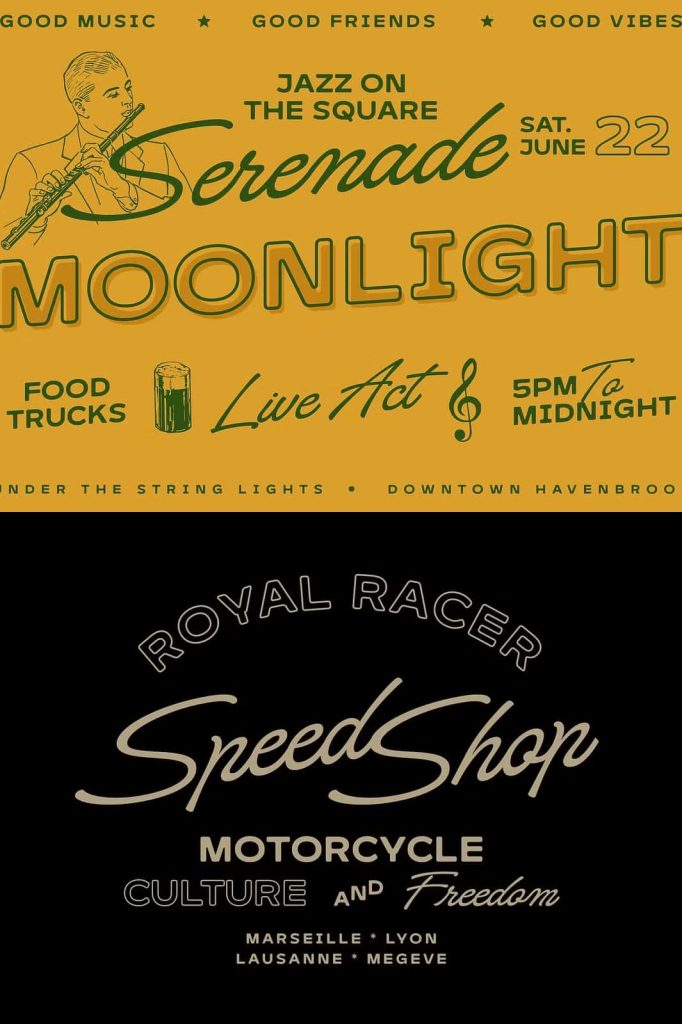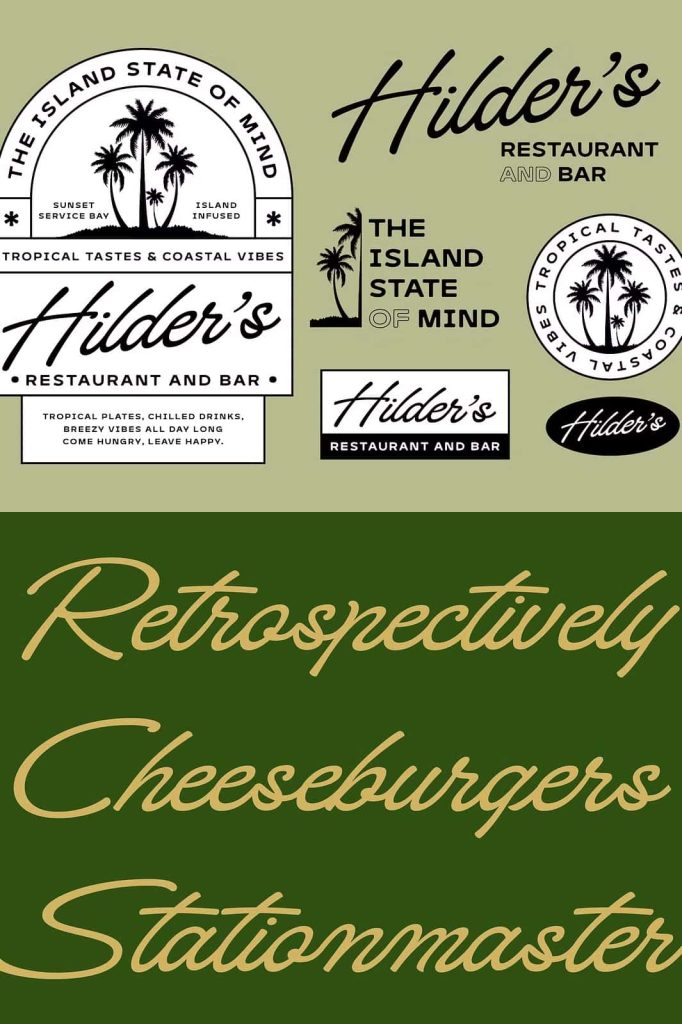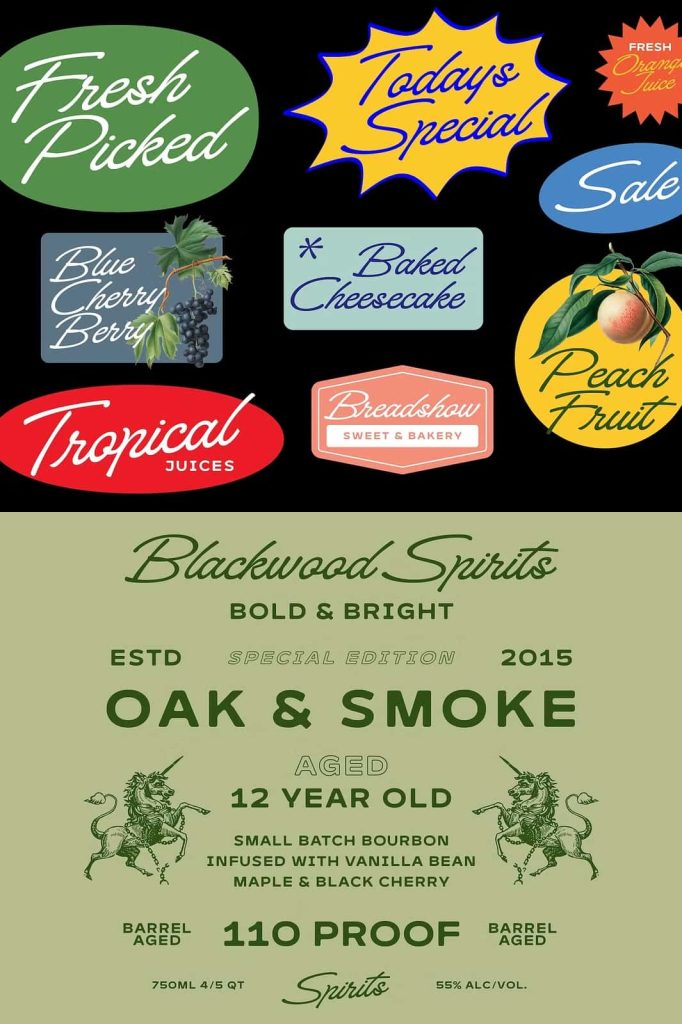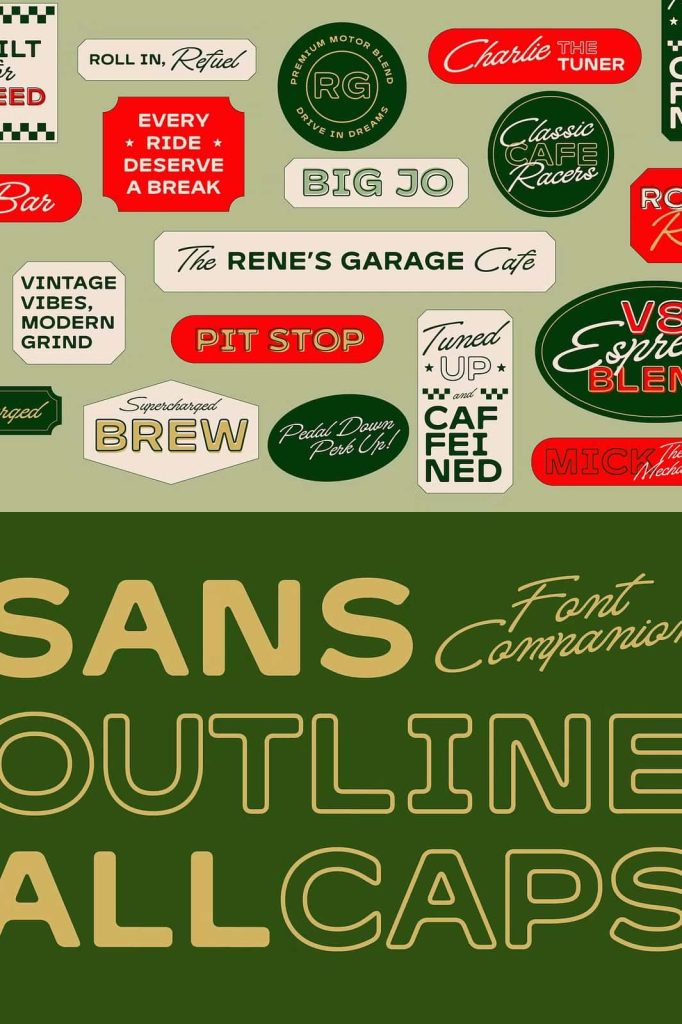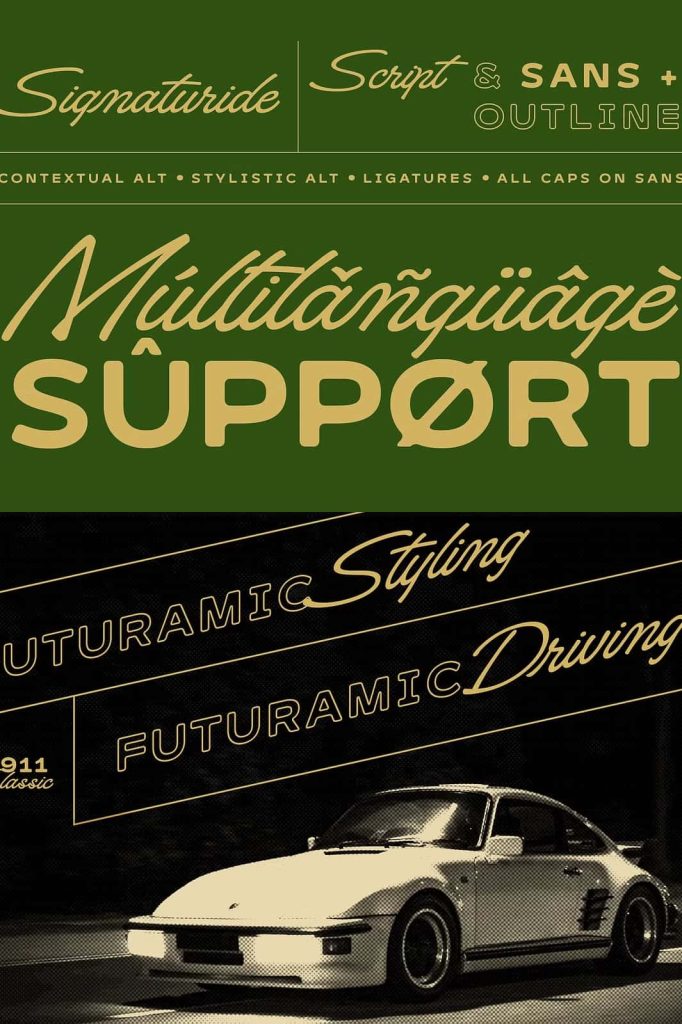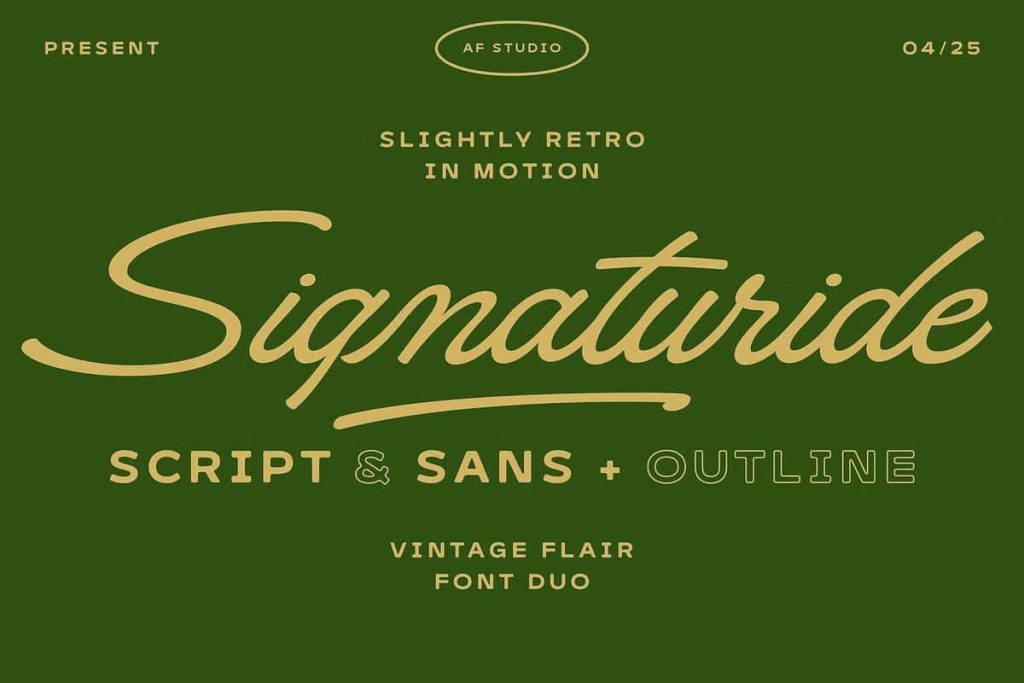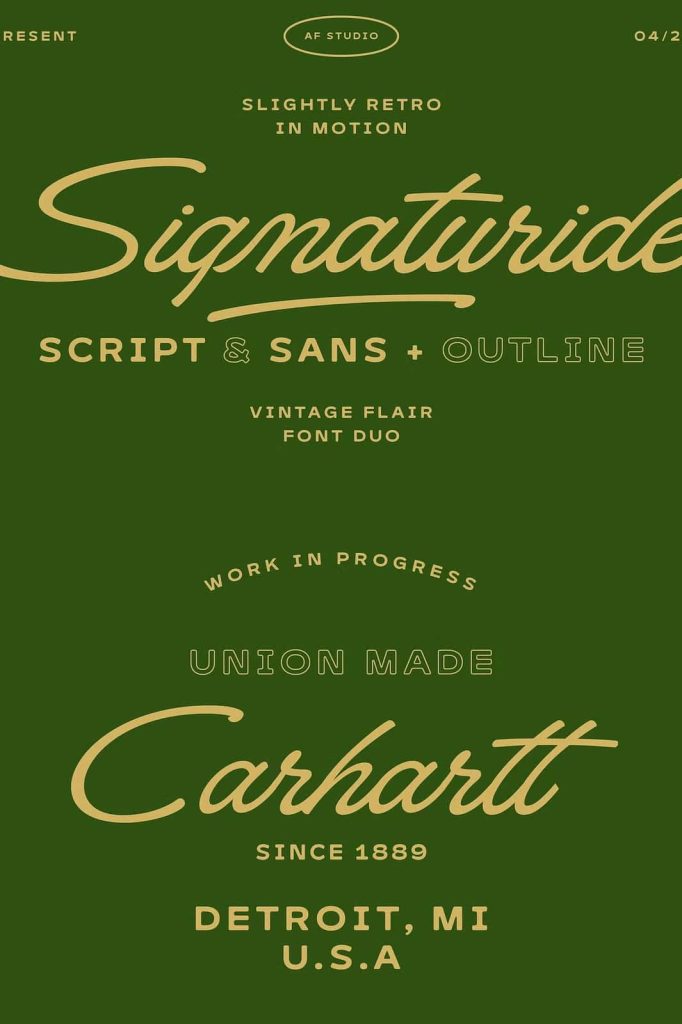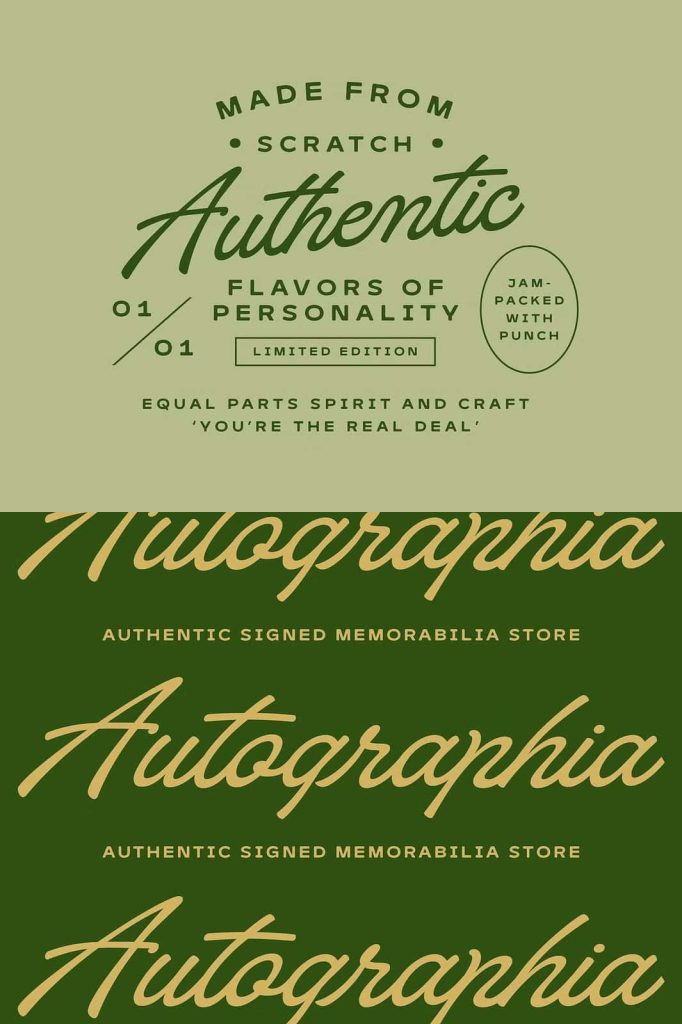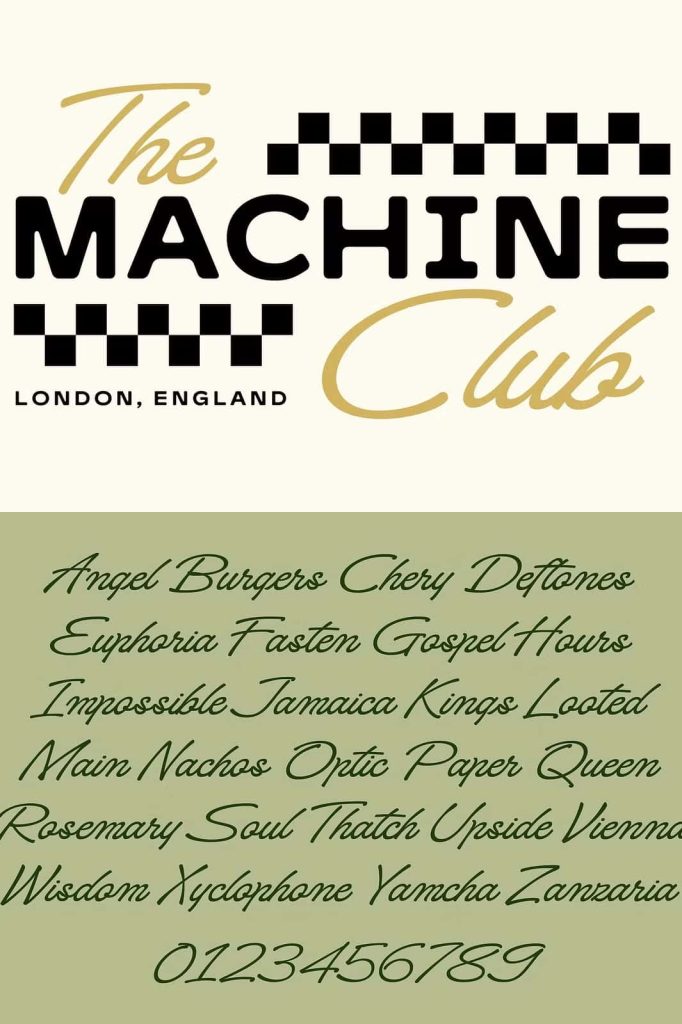
Signaturide Vintage Font Duo
Signaturide is a versatile vintage-inspired font duo that combines timeless retro aesthetics with modern design flexibility. Carefully crafted to deliver both style and functionality, Signaturide features a beautifully balanced pairing of an expressive script font and a clean sans-serif companion. This powerful combination allows designers to create eye-catching typography that feels authentic, sophisticated, and highly adaptable across a wide variety of creative projects.
Inspired by the iconic lettering styles of the mid-century era, Signaturide captures the flowing movement and handcrafted personality of vintage typography while maintaining the precision and usability required by today’s designers. Whether you are creating memorable branding, stylish packaging, editorial layouts, or social media graphics, Signaturide gives your projects a distinctive visual identity that stands out in both print and digital environments.
A Perfect Combination of Script and Sans-Serif Typography
One of the greatest strengths of Signaturide lies in its carefully designed font pairing. The expressive script font brings warmth, movement, and handcrafted elegance, while the modern sans-serif font provides structure, balance, and exceptional readability. Together, they create a harmonious typographic system that allows designers to build visually engaging layouts without searching for additional font pairings.
The script style delivers smooth flowing strokes inspired by vintage signage and classic hand lettering, while the sans-serif counterpart introduces clean geometric forms that complement the decorative elements perfectly. This thoughtful combination allows both fonts to work beautifully together or independently, depending on the creative direction of your project.
Inspired by Mid-Century Design
Signaturide embraces the enduring appeal of mid-century typography by incorporating graceful curves, confident strokes, and nostalgic design elements that recall classic advertising, roadside signage, and handcrafted branding. Rather than simply recreating vintage letterforms, the font duo modernizes these influences to ensure compatibility with today’s design standards.
The result is typography that feels both familiar and fresh. Designers can create projects that celebrate retro aesthetics while maintaining a polished, contemporary appearance suitable for modern audiences.
Perfect for Branding and Visual Identity
Typography plays a vital role in establishing memorable brand identities, and Signaturide provides everything needed to create logos and branding materials with lasting impact. The expressive script adds personality and authenticity, while the sans-serif font reinforces professionalism and clarity.
This balanced approach makes Signaturide an excellent choice for businesses seeking a distinctive visual identity that feels approachable, creative, and timeless.
Recommended Branding Applications
- Logo design
- Business branding
- Café and restaurant identities
- Coffee shop branding
- Fashion labels
- Lifestyle brands
- Handmade product packaging
- Boutique business identities
- Personal branding
Create Beautiful Editorial Layouts
Signaturide performs exceptionally well in editorial design where typography serves as both a communication tool and a visual centerpiece. Magazine covers, book titles, catalogs, brochures, and promotional publications all benefit from the font duo’s ability to create strong visual hierarchy and engaging compositions.
Use the script font for elegant headlines, featured quotes, or decorative accents, while relying on the sans-serif style for supporting titles, subheadings, and complementary display text. This pairing creates layouts that feel cohesive, balanced, and professionally designed.
Ideal for Packaging and Product Design
Packaging design requires typography that immediately communicates quality and personality. Signaturide helps products establish a memorable shelf presence through its combination of nostalgic charm and modern sophistication. The font duo works beautifully across food packaging, beverage labels, cosmetic products, artisan goods, apparel branding, and handcrafted merchandise.
Its vintage-inspired character enhances product storytelling while maintaining a clean and refined presentation that appeals to modern consumers.
Versatile Across Creative Projects
Although Signaturide draws inspiration from classic vintage typography, its versatility extends far beyond retro-themed designs. Designers can easily adapt the font duo for minimalist layouts, luxury branding, creative portfolios, social media campaigns, and digital marketing materials.
The balanced relationship between the expressive script and clean sans-serif makes it suitable for projects requiring both decorative impact and professional readability.
Perfect For
- Brand identities